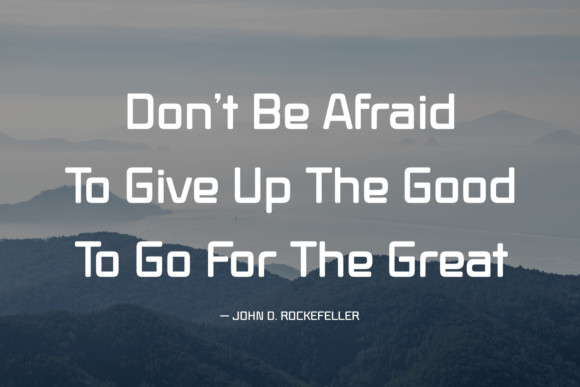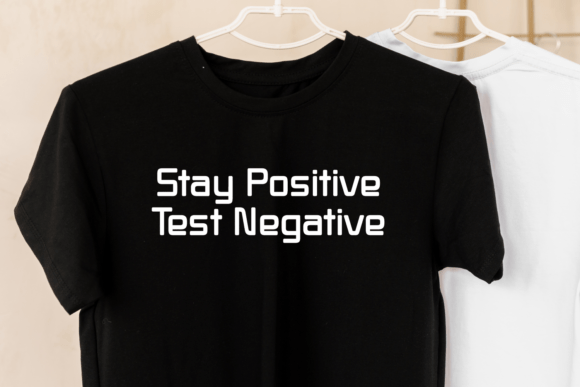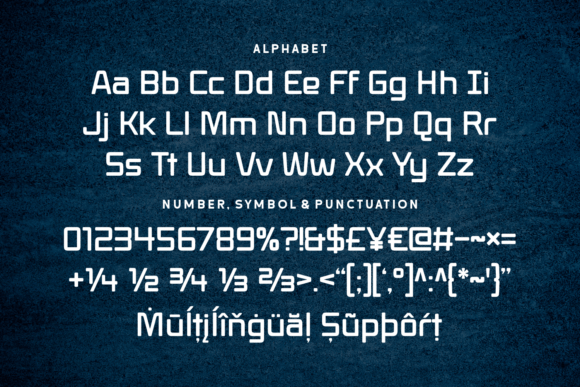
Introducing Grande Size Font: The Ultimate Choice for Bold and Futuristic Designs
In the world of typography, fonts play a crucial role in conveying the tone and personality of a brand or design project. For designers and crafters looking to make a statement, Grande Size Font is an excellent choice. This bold, futuristic sans serif font is built for maximum impact, making it perfect for sports branding, game titles, posters, and high-energy design projects.
The Unique Characteristics of Grande Size Font
Grande Size Font boasts a distinctive personality, thanks to its square shapes and smooth rounded terminals. This combination gives it a tech-forward yet approachable feel, making it an excellent choice for designs that require a strong geometric presence. The font’s unique characteristics make it stand out from other sans serif fonts, providing a fresh and modern look that is sure to capture the attention of your audience.
Key Features of Grande Size Font
- Bold and Futuristic: Grande Size Font is designed to make a statement. Its bold and futuristic style is perfect for designs that require a strong and confident look.
- Square Shapes and Smooth Rounded Terminals: The font’s unique combination of square shapes and smooth rounded terminals gives it a tech-forward yet approachable personality.
- Maximum Impact: Grande Size Font is built for maximum impact, making it perfect for sports branding, game titles, posters, and high-energy design projects.
- Strong Geometric Presence: The font’s strong geometric presence delivers clarity and style at any scale, making it an excellent choice for designs that require a bold and confident look.
Use Cases for Grande Size Font
Grande Size Font is an versatile font that can be used in a variety of design projects, including:
- Sports Branding: The font’s bold and futuristic style makes it perfect for sports branding, such as team logos, jerseys, and marketing materials.
- Game Titles: Grande Size Font is an excellent choice for game titles, adding a touch of excitement and energy to your game’s branding.
- Posters: The font’s strong geometric presence makes it perfect for posters, providing a bold and eye-catching look that is sure to grab the attention of your audience.
- High-Energy Design Projects: Grande Size Font is designed for high-energy design projects, making it perfect for designs that require a bold and confident look.
Why Choose Grande Size Font?
There are many reasons why Grande Size Font is an excellent choice for designers and crafters. Here are just a few:
- Unique Personality: Grande Size Font has a unique personality that sets it apart from other sans serif fonts.
- Versatility: The font is versatile and can be used in a variety of design projects.
- Maximum Impact: Grande Size Font is built for maximum impact, making it perfect for designs that require a bold and confident look.
- Easy to Read: The font’s strong geometric presence delivers clarity and style at any scale, making it easy to read.
In conclusion, Grande Size Font is an excellent choice for designers and crafters looking to make a statement. Its bold and futuristic style, unique characteristics, and versatility make it perfect for a variety of design projects. Whether you’re working on sports branding, game titles, posters, or high-energy design projects, Grande Size Font is sure to deliver clarity and style at any scale.
Get Ready to Make a Statement with Grande Size Font